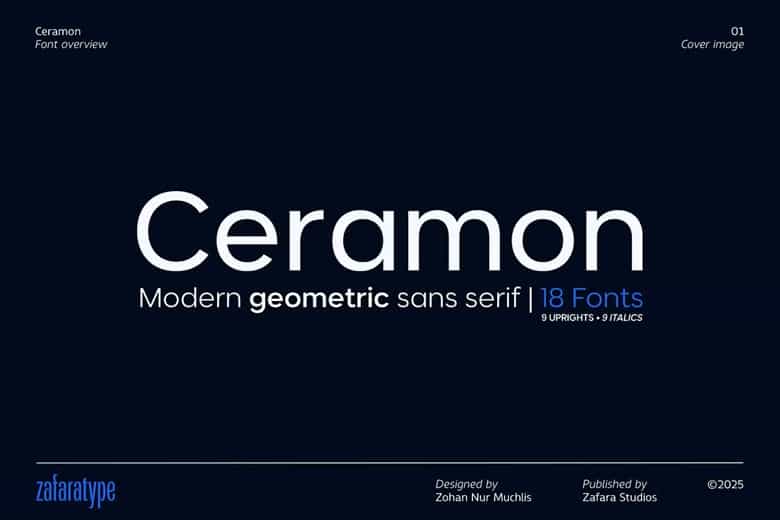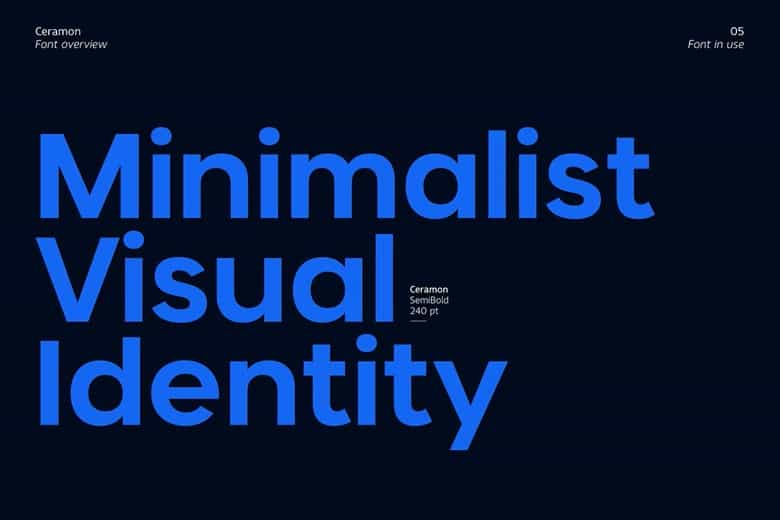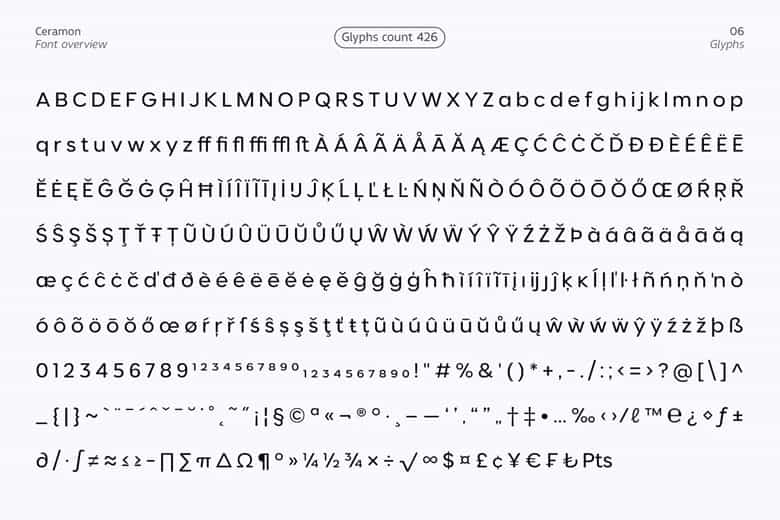
Ceramon is a contemporary geometric sans serif font that balances sparse makeup with delicacy of curves and elevated attention to detail. The design is highly legible owing to the clean and balanced typography and gives a modern and versatile voice, which works perfectly in branding, editorial, UI design, signage, packaging, and other applications.